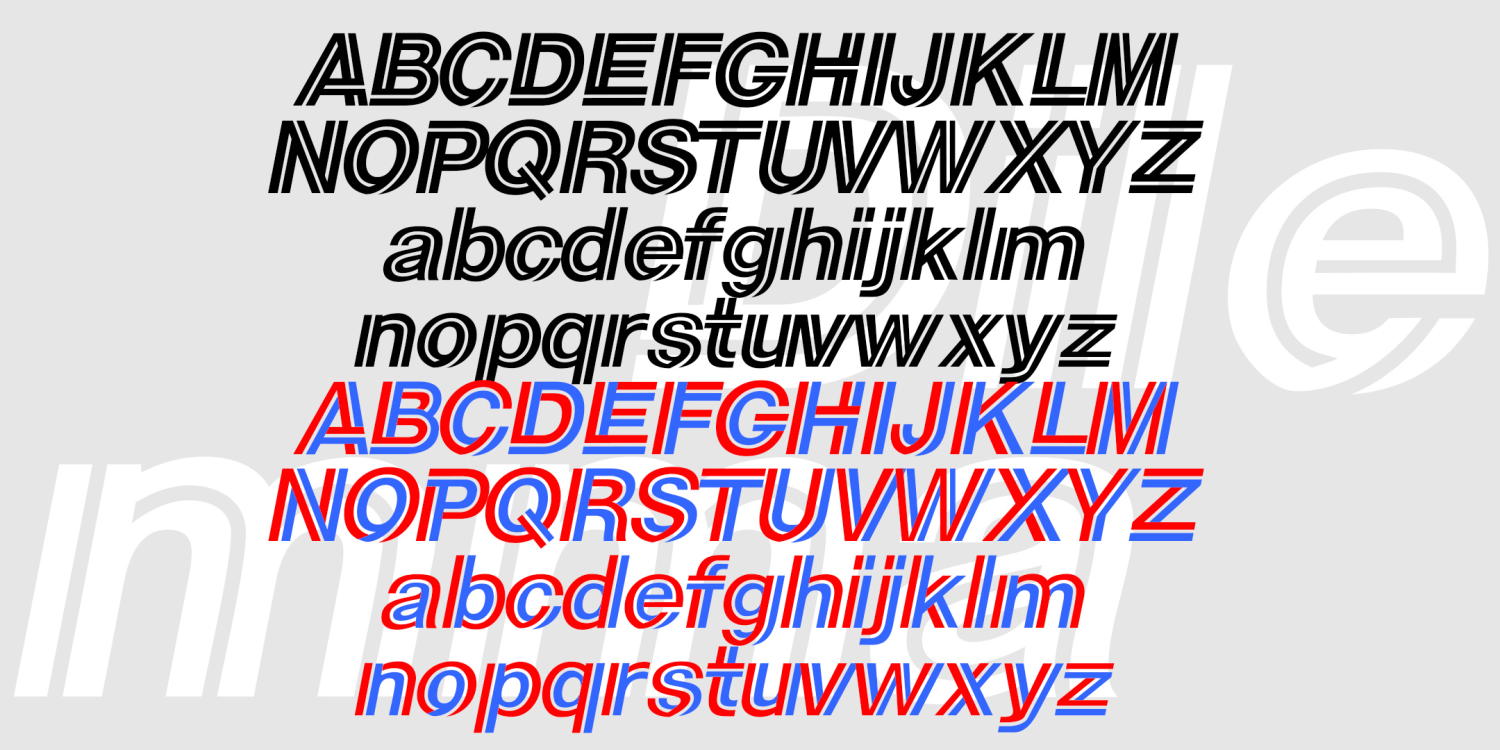
Dilemma
Font Family by Harold's Fonts
DILEMMA is a bold oblique sans-serif font with a dynamic inline that twists in and around each letter. The Regular font has black letters and white lines; a pair of companion fonts each have half of each letter. Set your type in each font and layer them in different colors to get multicolor effect. DILEMMA was inspired by Sears' 1984-94 logo.